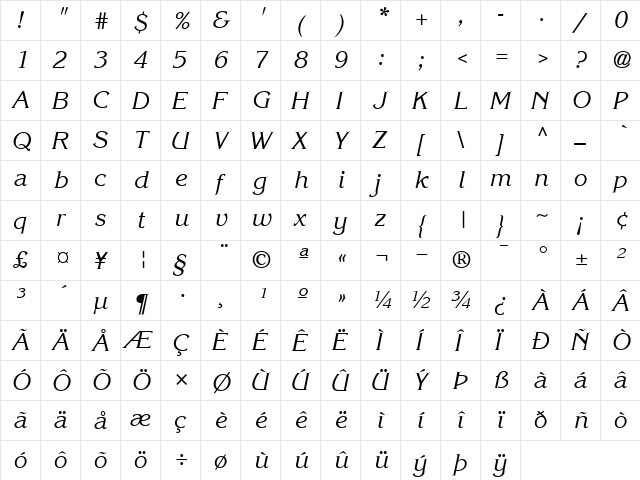
ITCKorinnaKursiv RomanItalic
Design Context for ITCKorinnaKursiv Typeface
ITCKorinnaKursiv is a composed and adaptable typeface that performs quietly and consistently across a wide range of design contexts. The dynamic lean of this cut emphasises speed and emphasis in any layout.
Pro Tip: Use ITCKorinnaKursiv for emphasis, pull quotes, and subheadings where its slanted energy can add rhythm to the layout.